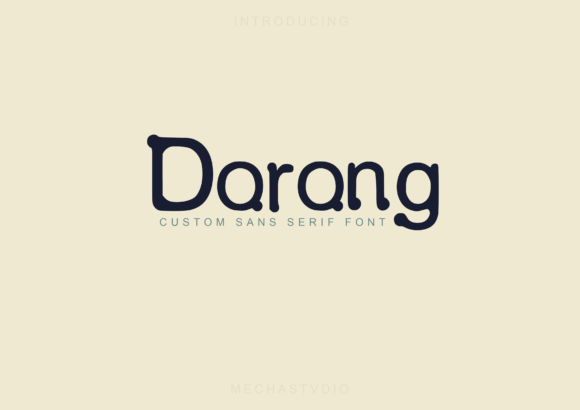
Dorong: A Simple and Playful Slab Serif Font
Dorong is a simple, unique, and playful custom slab serif font. Moreover, its distinctive style has the power to transform your projects into true standouts. This versatile typeface combines simplicity with playful elements to create memorable designs.
Key Features of Dorong
- Simple Design: Offers clean, straightforward letterforms.
- Unique Style: Features distinctive characteristics that set it apart.
- Playful Character: Brings a fun, engaging element to designs.
- Custom Details: Includes special touches that make designs stand out.
Best Uses for Dorong
Thanks to its unique characteristics, Dorong works especially well for:
- Fun branding projects
- Engaging headlines
- Creative display text
- Playful marketing materials
- Unique logo designs
- Eye-catching website headers
- Distinctive social media content
When using Dorong in your designs, keep these tips in mind:
- Try it for headlines or short text to show off its playful style.
- Use different sizes to highlight its unique features.
- Pair with simpler fonts for body text to create balance[2].
- Let its custom details help your designs stand out.
To sum up, Dorong is an excellent choice for designers seeking a simple yet playful slab serif font. Its unique style makes it perfect for transforming ordinary projects into standout designs. Whether you’re creating branding materials, designing websites, or developing marketing content, Dorong offers the perfect blend of simplicity and personality.
Furthermore, Dorong’s distinctive design allows it to shine in contexts where both clarity and creativity are key. For instance, from logo designs to social media content, this font can lift your projects with its unique style. Also, its simple yet playful appearance works particularly well in designs that aim to make a memorable impact.
In conclusion, Dorong truly captures the essence of playful design in slab serif typography. Its versatility across different applications shows how well it can serve various creative needs. Therefore, for those wanting to add a touch of unique charm to their work, Dorong can transform any design into something special. Ultimately, it’s perfect for designers aiming to make their projects stand out from the crowd.